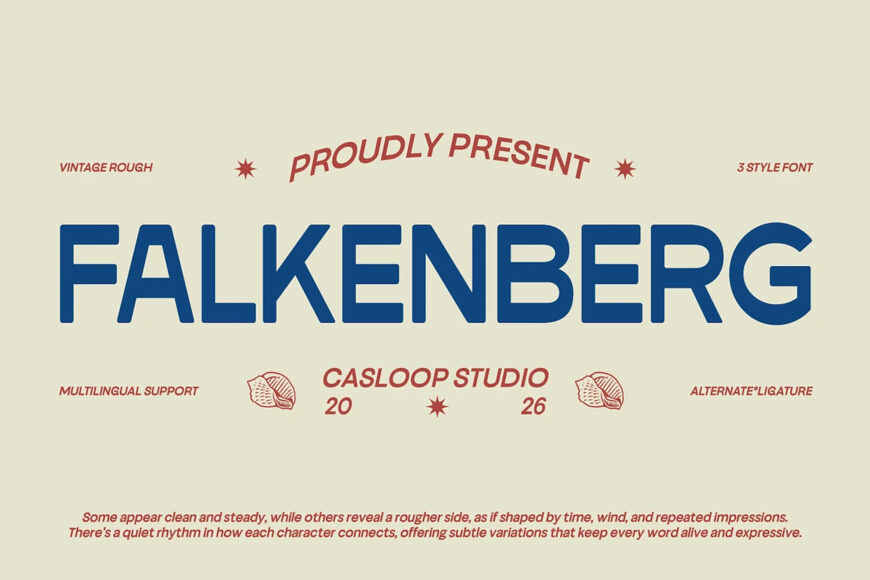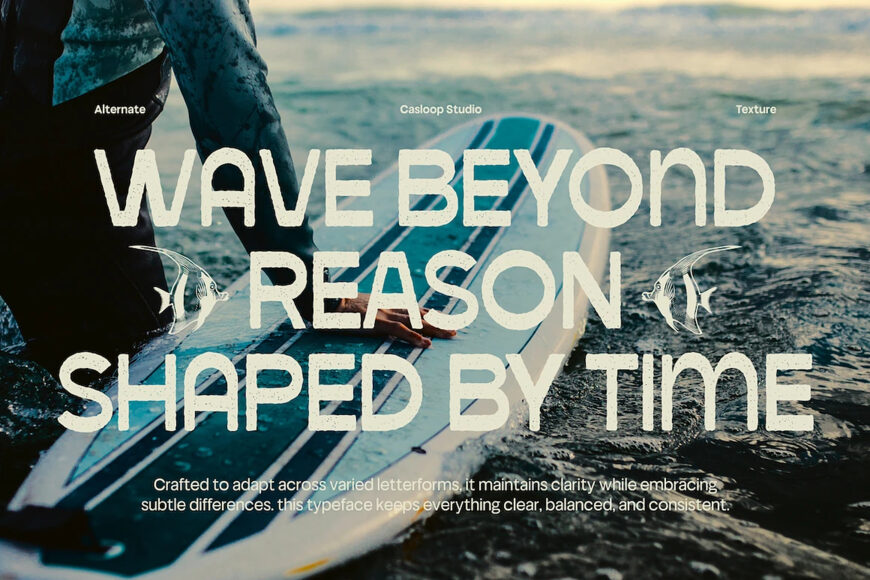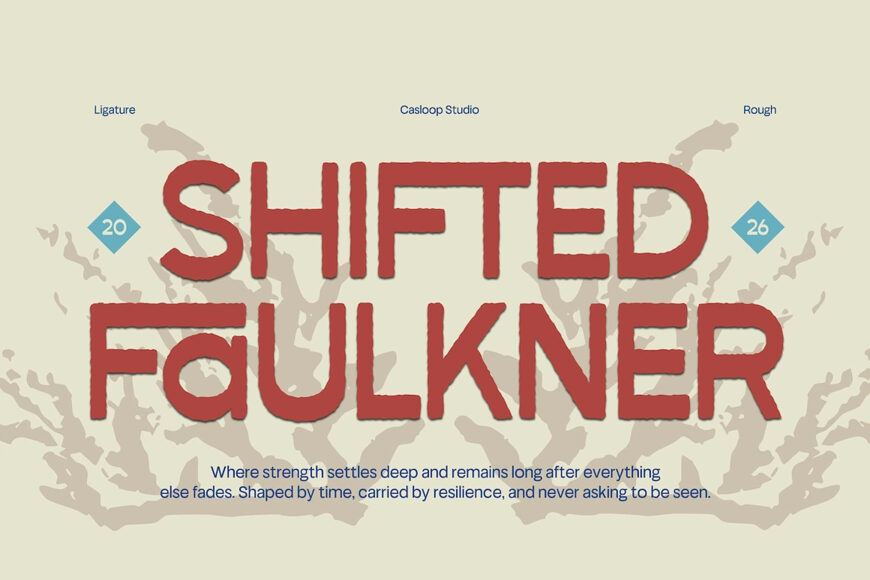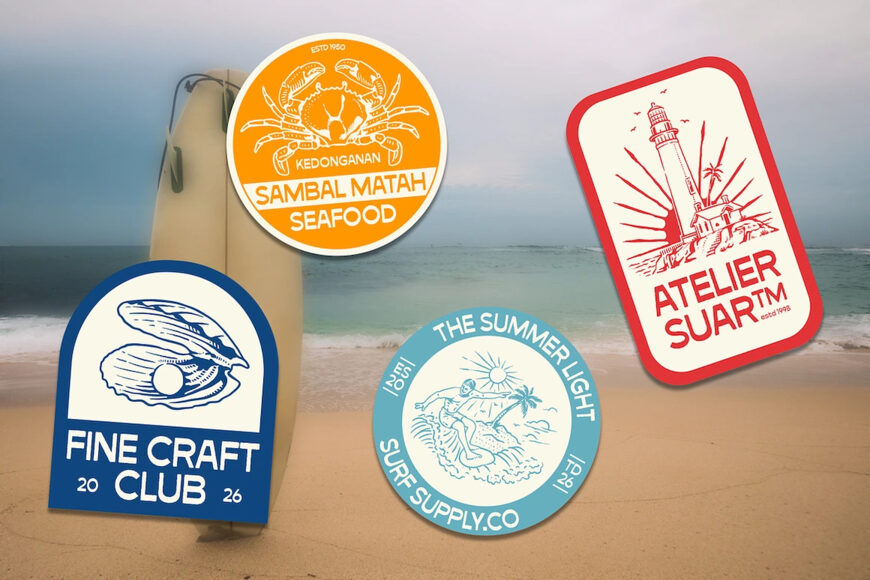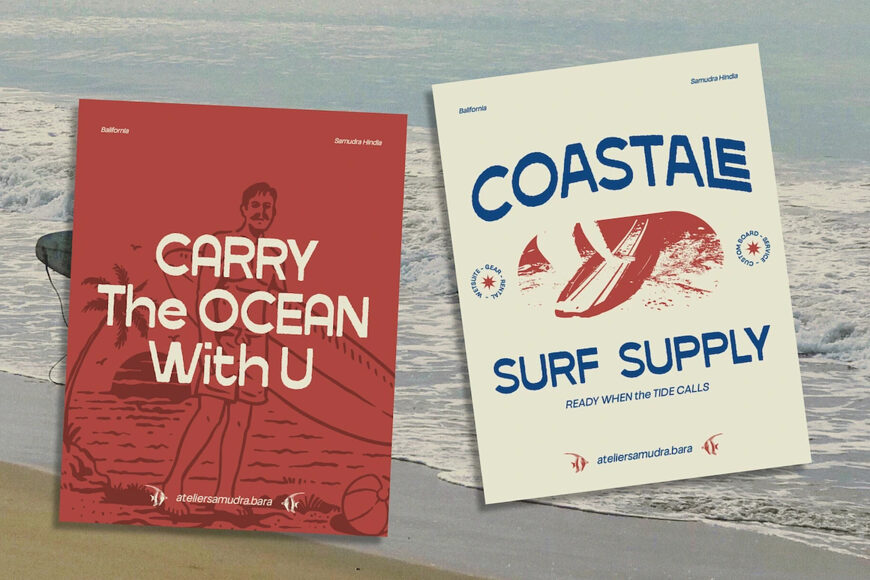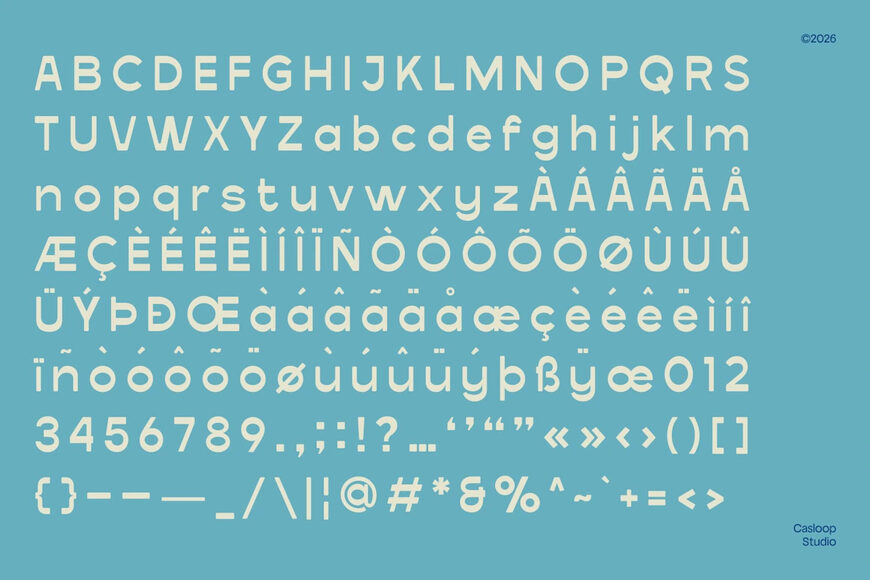
Falkenberg Font Family
Falkenberg is a vintage rough display font inspired by classic American signage and worn print textures, delivering a bold yet authentic visual presence. Its standout characters A, R, K, S, and G are built with solid structures and subtly rounded edges, intentionally avoiding perfect precision to create a natural, weathered feel.
The slightly uneven stroke rhythm adds a sense of age and texture, giving the typeface a lived-in personality that feels both stable and expressive. This makes Falkenberg ideal for badges, posters, stamps, adventure-themed branding, and headline designs that aim to capture a raw, nostalgic, and timeless spirit.